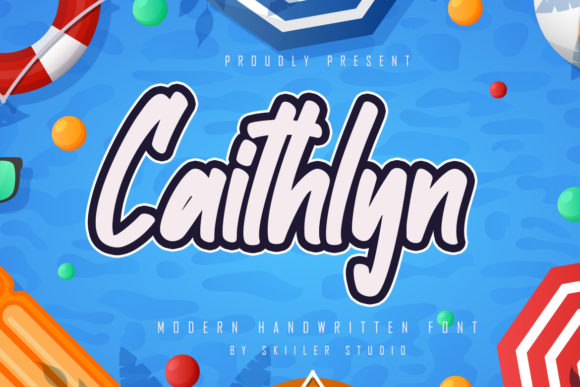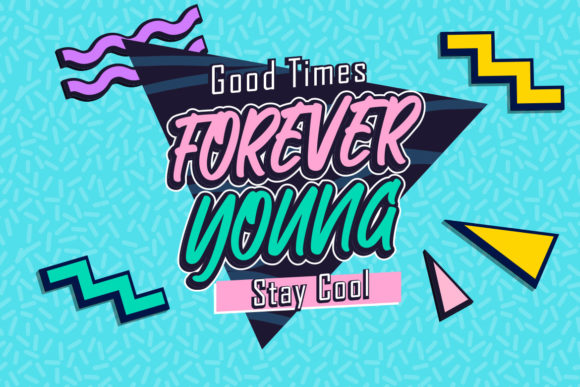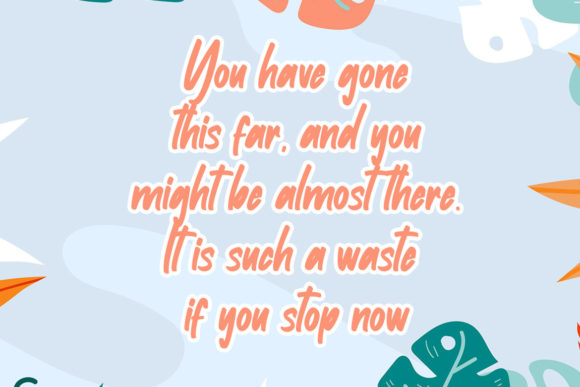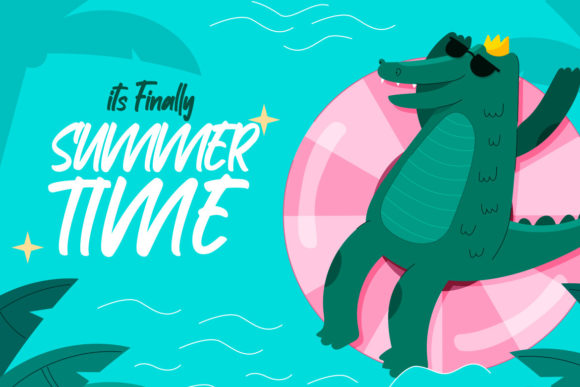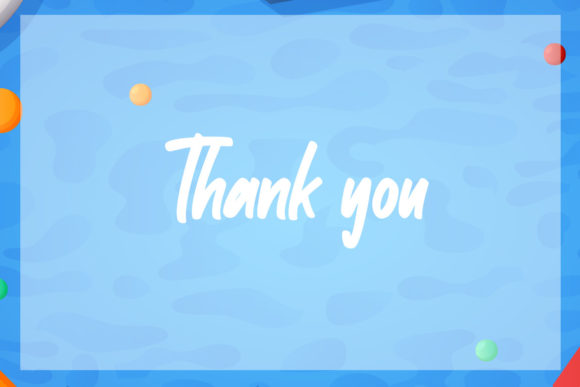
Caithlyn Font
About Caithlyn Font
Caithlyn is a lovely script font featuring charming, playful characters that seem to dance along the baseline. Add this font to your most creative ideas, and notice how it makes them stand out!